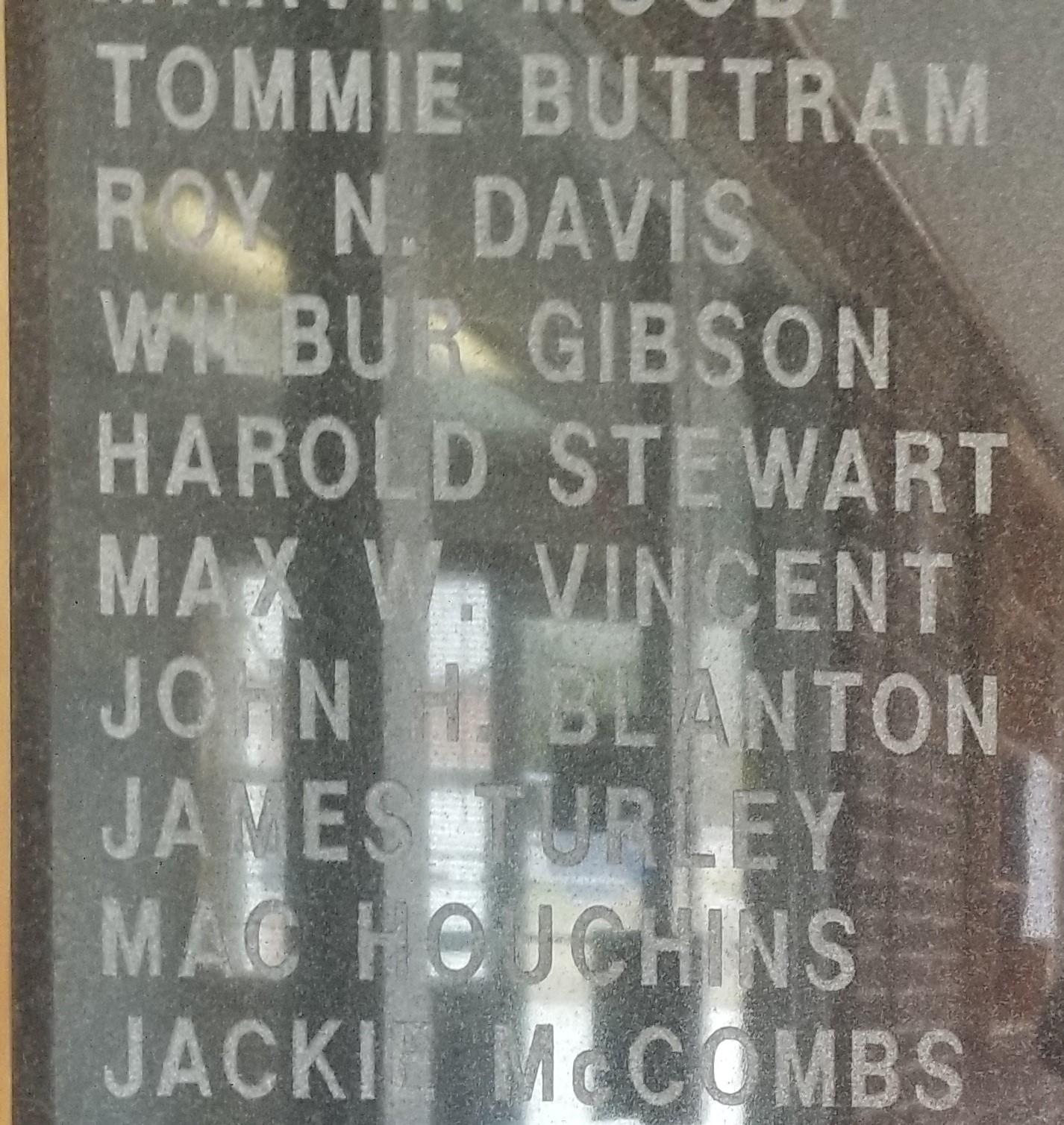
HELVETICA LIGHT?
My paperwork says they used Helvetica light but it doesn’t match any Helvetica I have.  If you look closely alot of the bars on the left side of the letters are larger then the right side.  Any thoughts?
To me it looks like universe 57 Gerber omega but they might of had plotting issues or used the crappy stencil that stretched overnight.
I believe this is Helvetica Light in Monu-Cad. The Monu-Cad version isn’t actually Lighter in weight, but slightly more condensed. It does appear that there was an issue with the plotter that created a slight horizontal shift to the lettering.